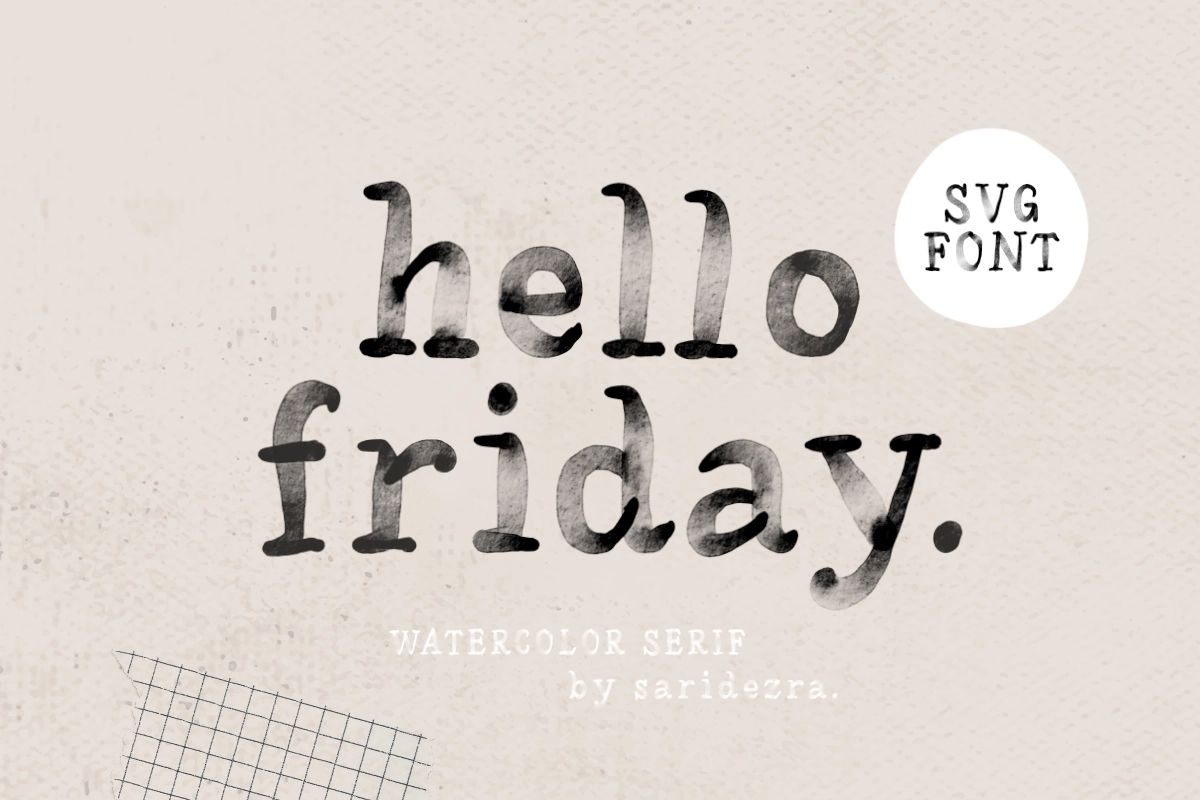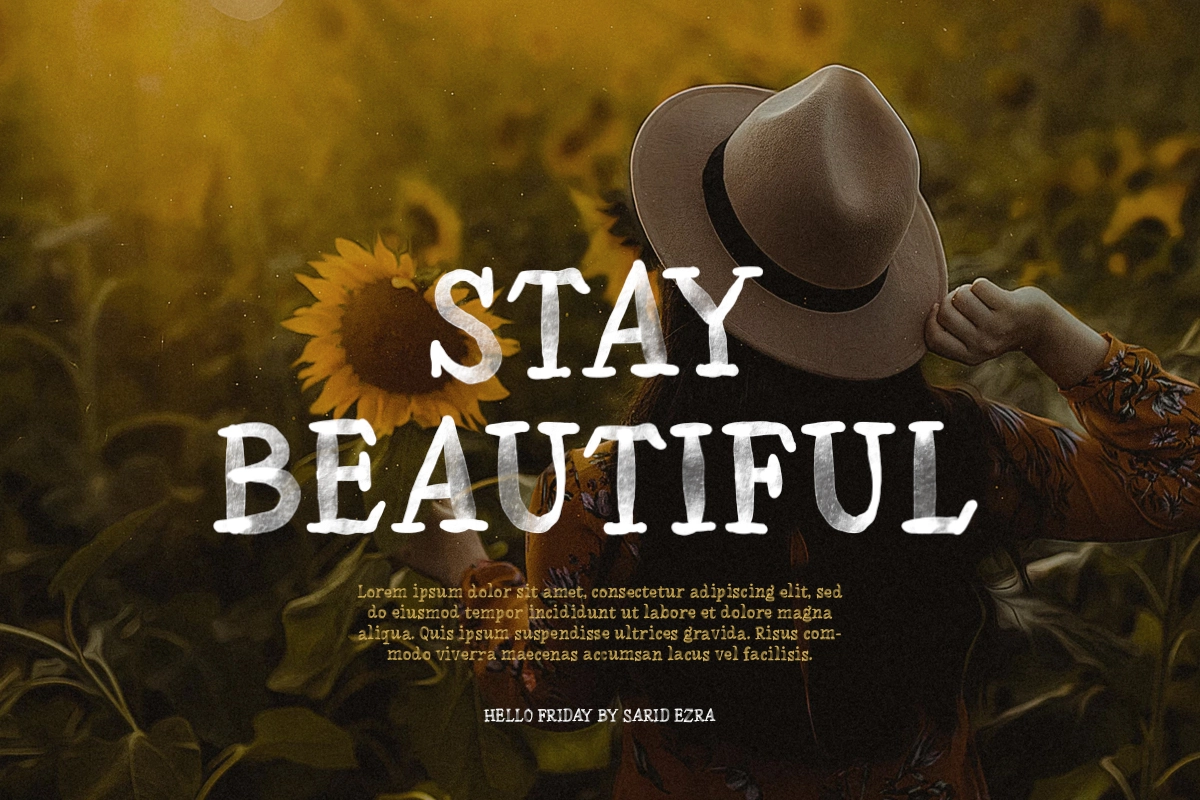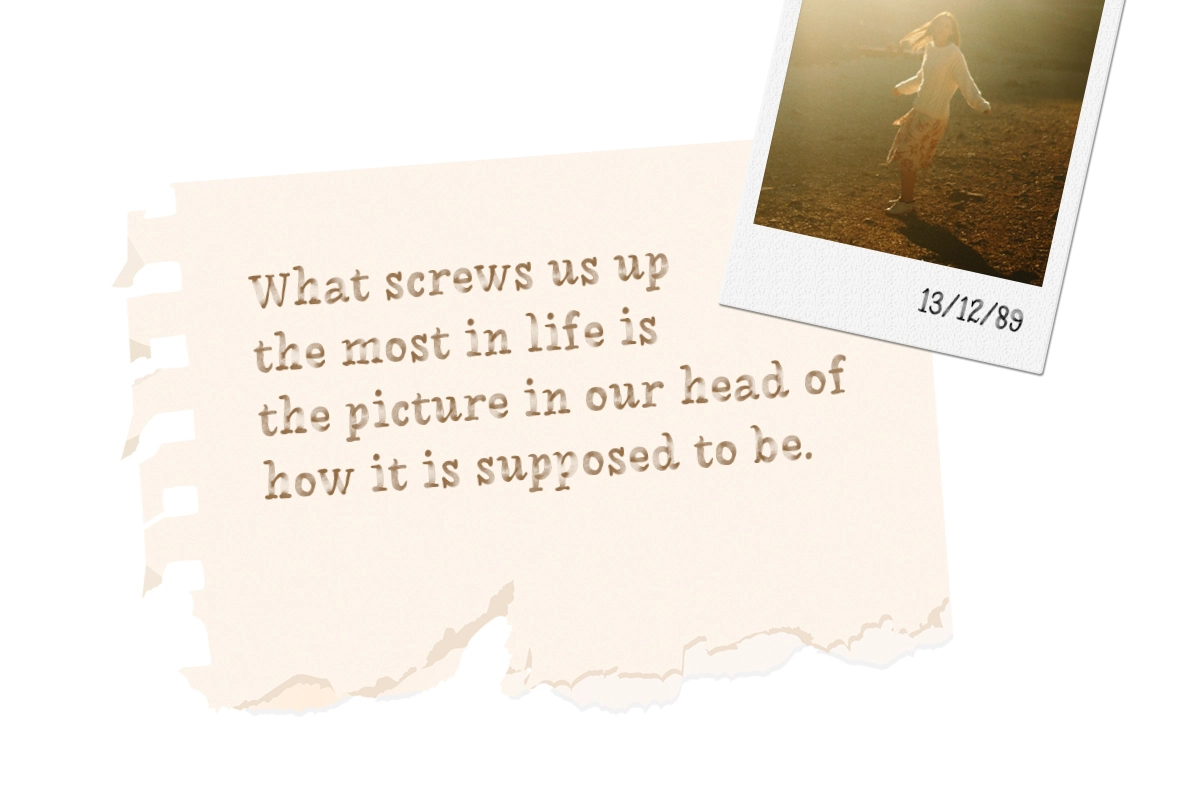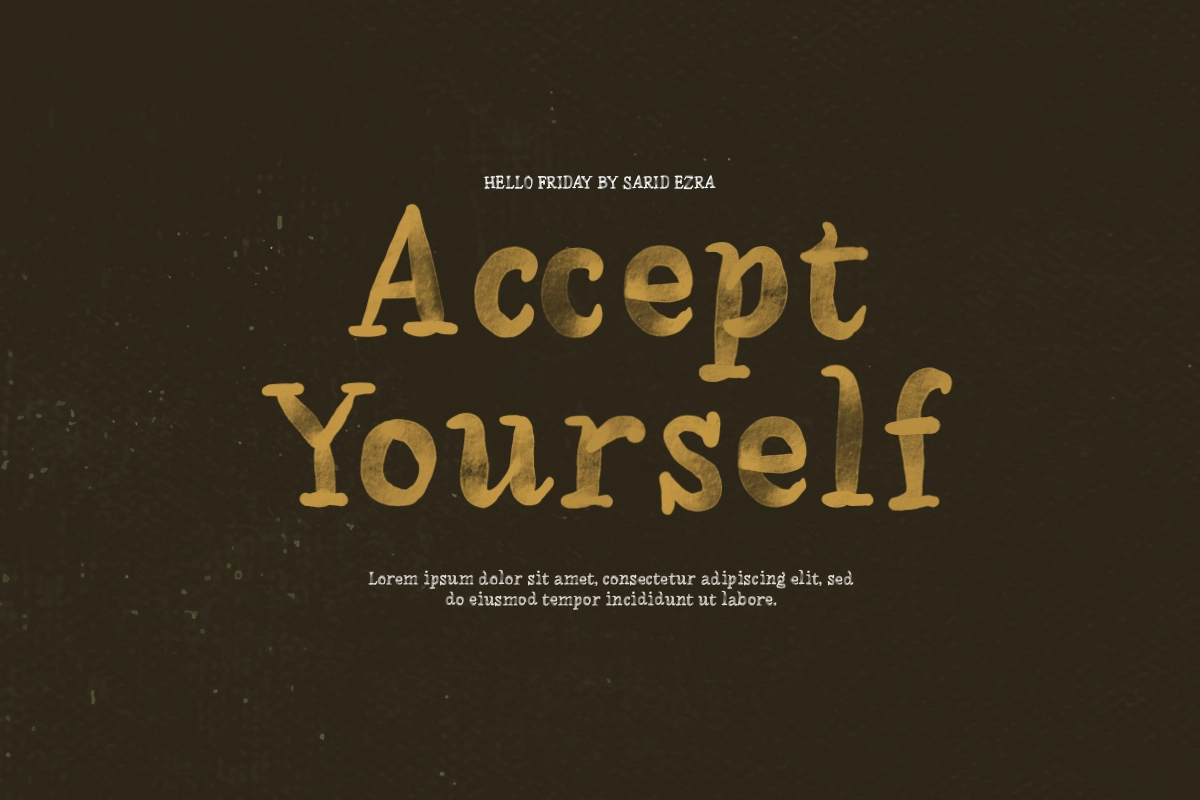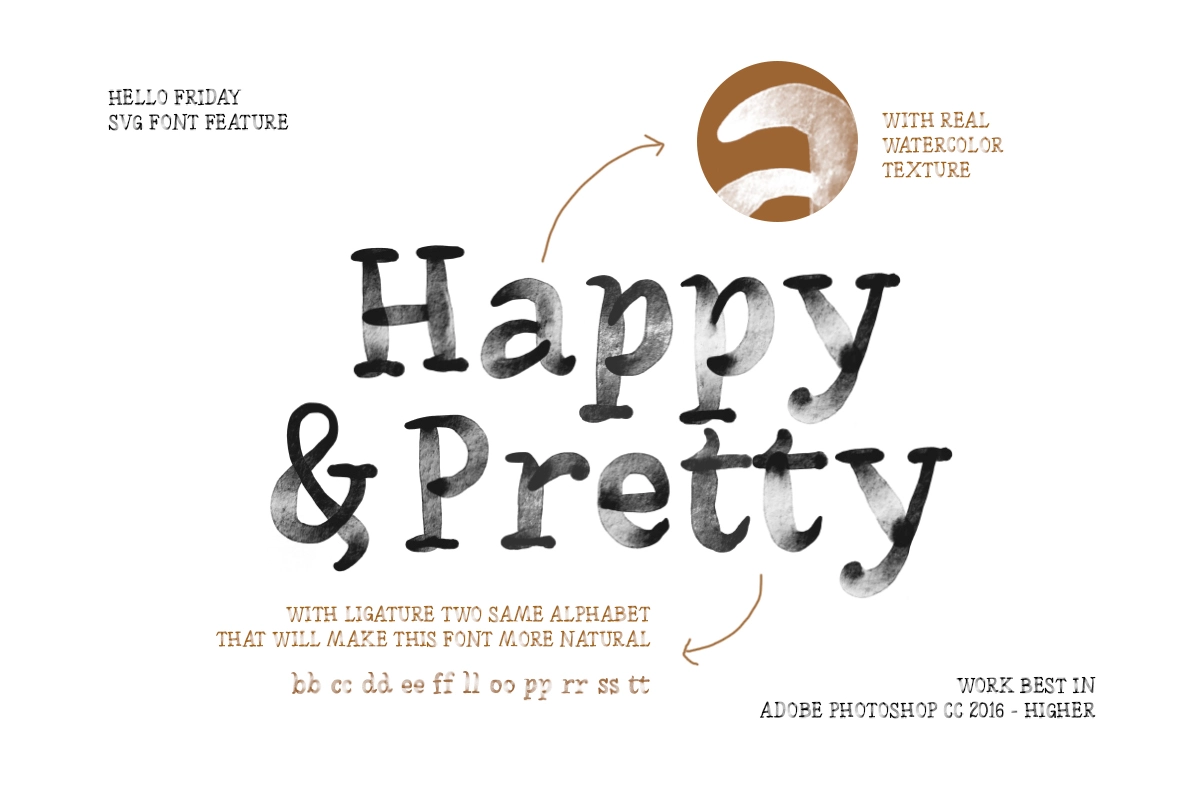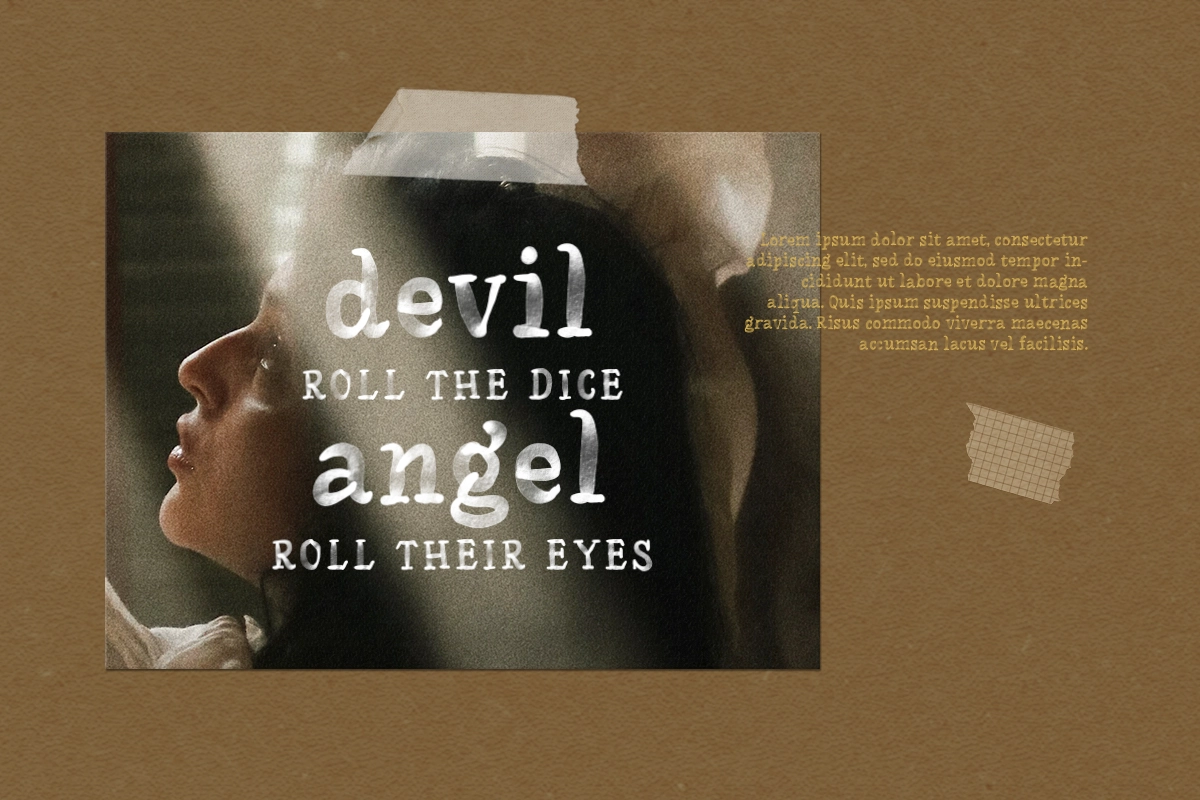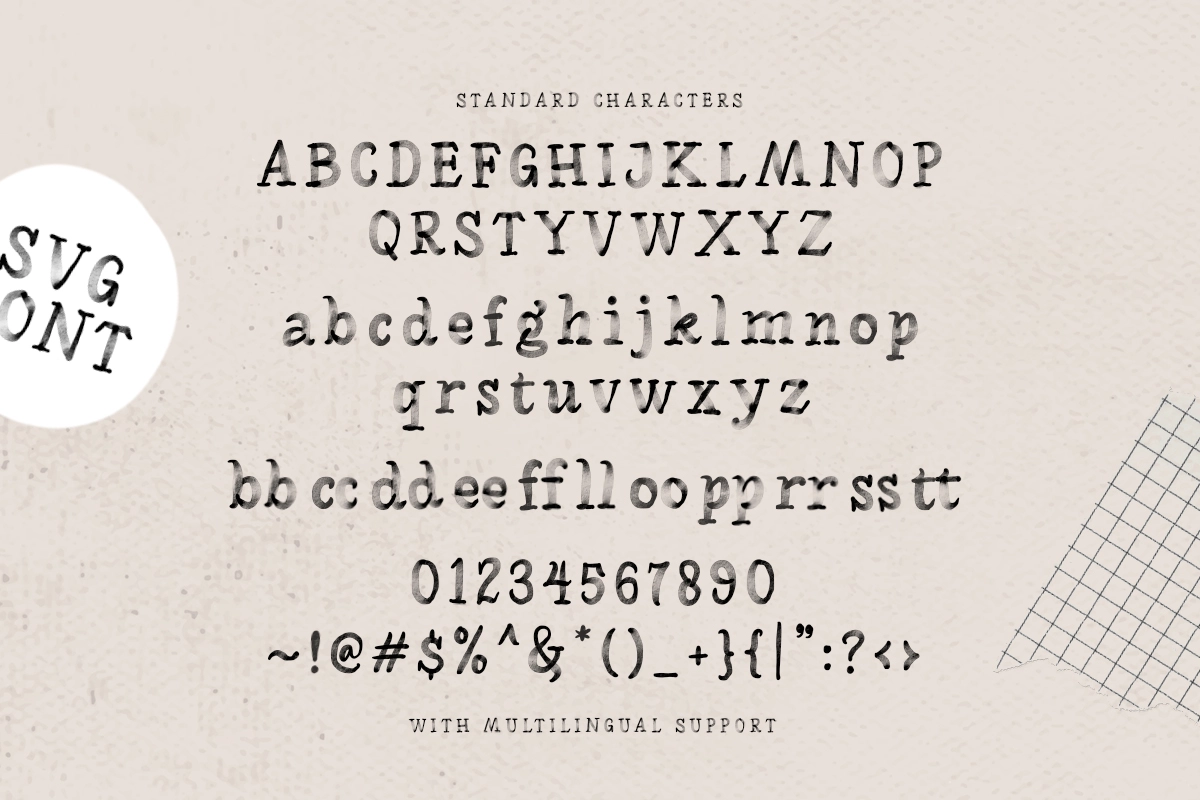
Hello Friday - Watercolor SVG Font
Hello Friday is SVG Font with watercolor feels. Comes with SVG format (SVG OTF) and also with a vector (OTF). This organic watercolor font also included double ligatures. Number, symbol, and another punctuation also included in this fonts. Support multilingual. Let this font make your project even more organic and natural!